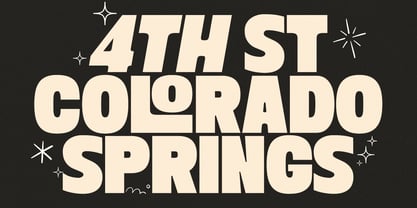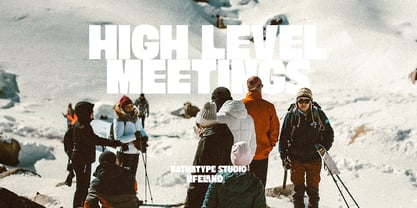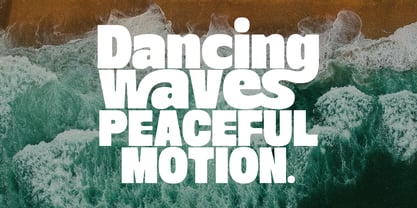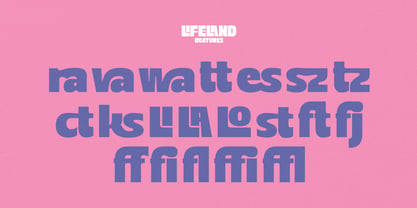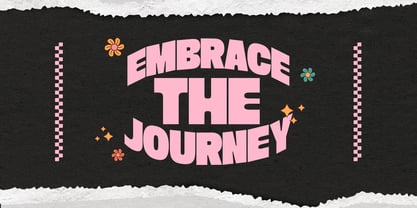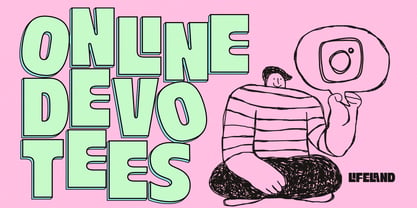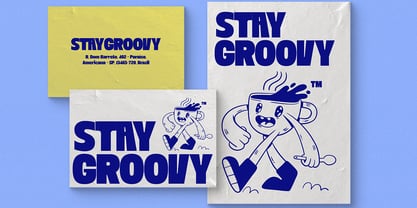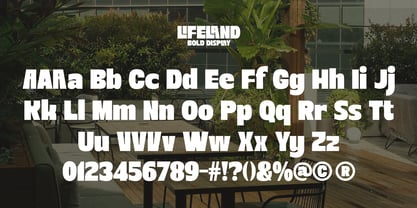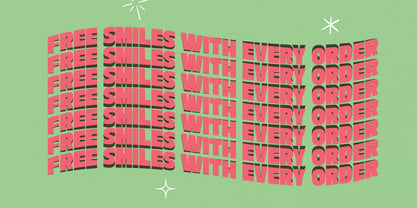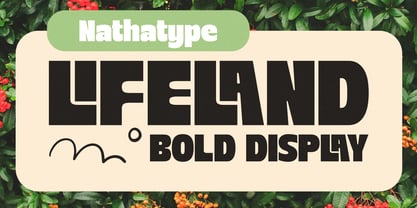
Lifeland
by Nathatype
The Lifeland Font Family was designed by Donis Miftahudin and published by Nathatype. Lifeland contains 1 styles. More about this family
Lifeland is a powerful display font. The defining feature of Lifeland lies in its sharp angles and solid structure. Each letterform is carefully constructed to emphasize clean cuts and dynamic edges, giving the font a striking geometric personality. If you’re looking for a bold display typeface that commands attention while maintaining clarity and balance, Lifeland is the perfect choice. In addition, enjoy the features here. Features: Ligatures Multilingual Supports PUA Encoded Numerals and Punctuations Lifeland fits in logos, invitations, quotes, branding, posters, and many more designs. Find out more ways to use this font by taking a look at the font preview. Thanks for purchasing our fonts. Hopefully, you have a great time using our font. Feel free to contact us anytime for further information or when you have trouble with the font. Thanks a lot and happy designing.